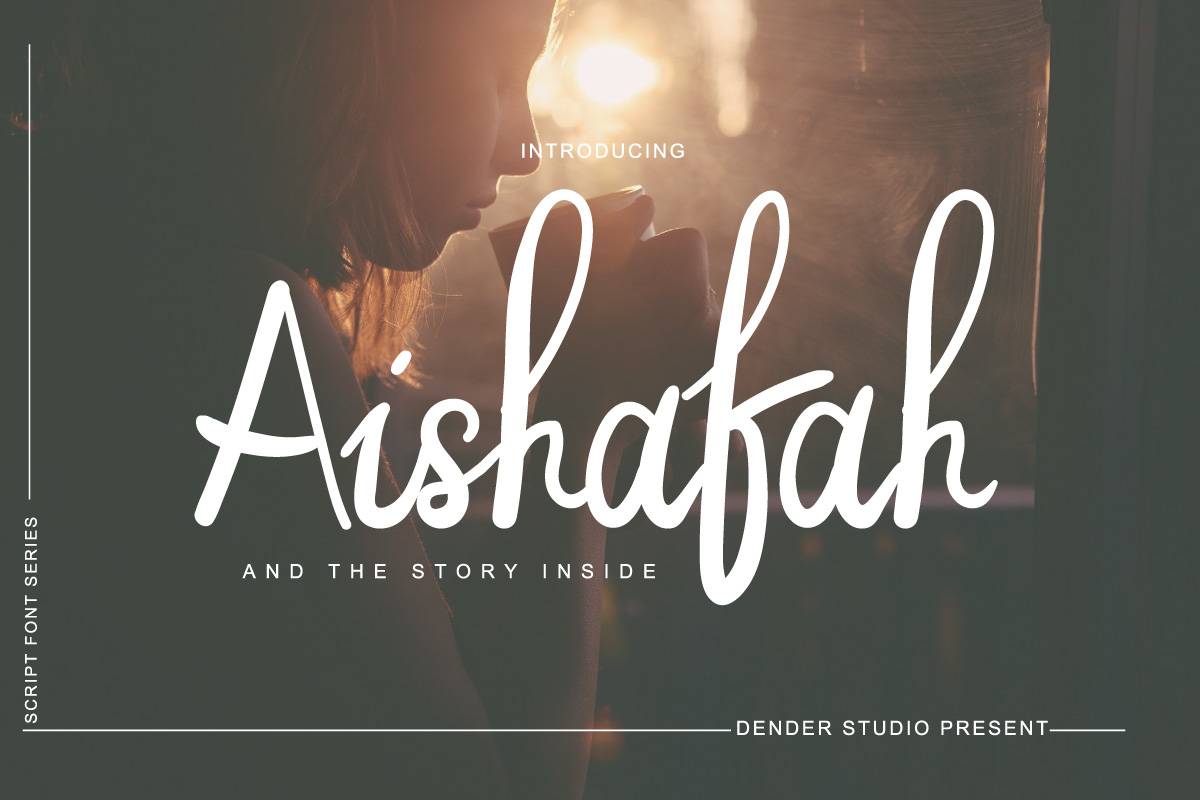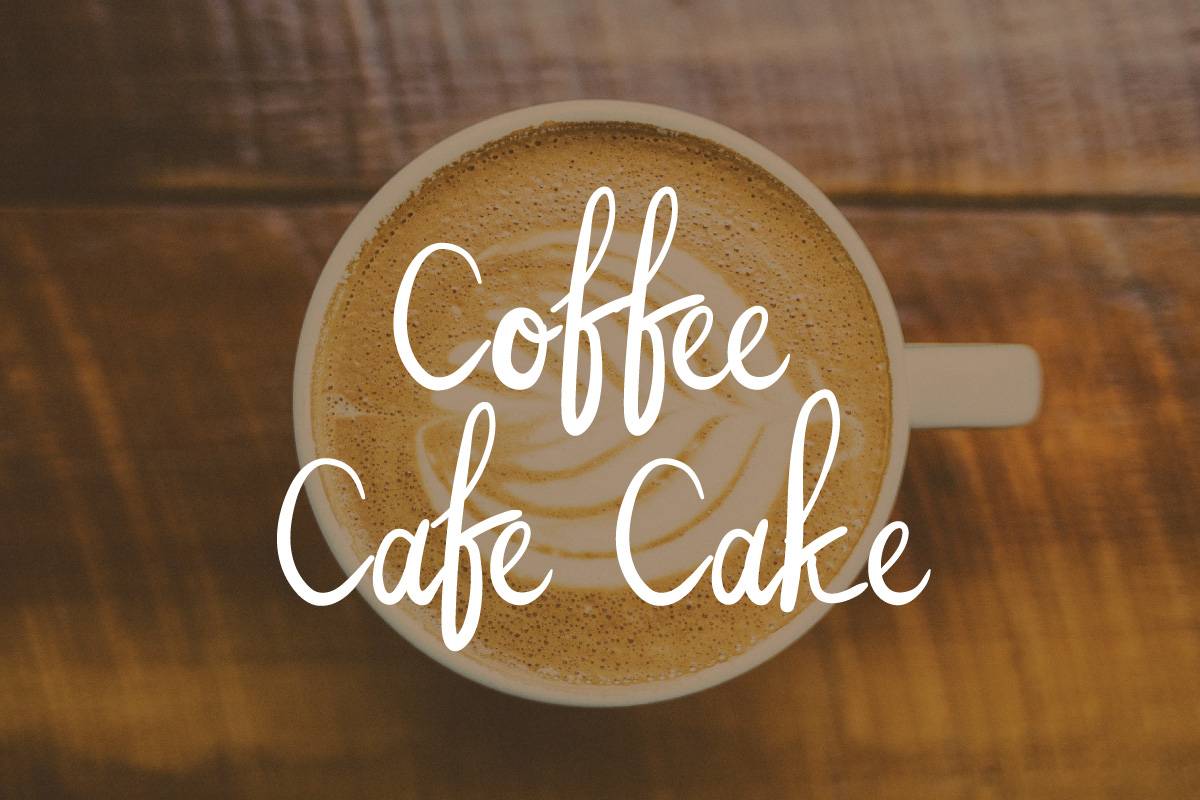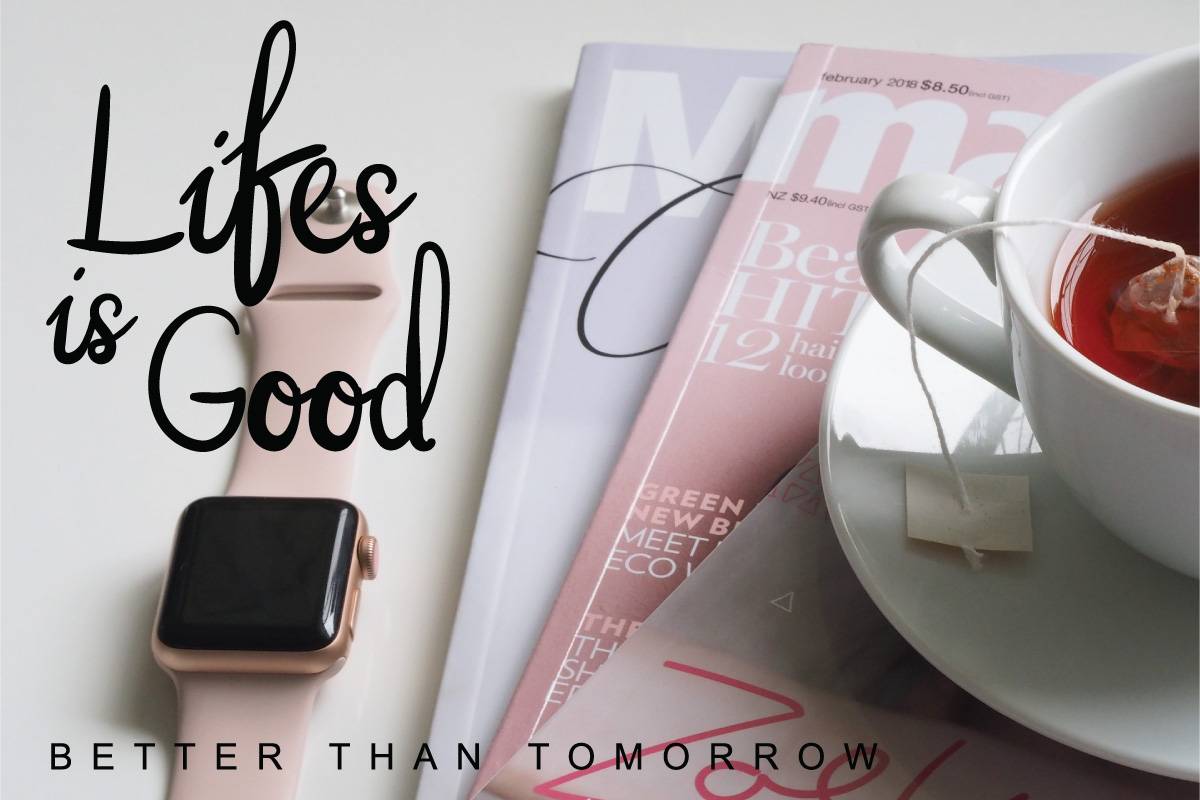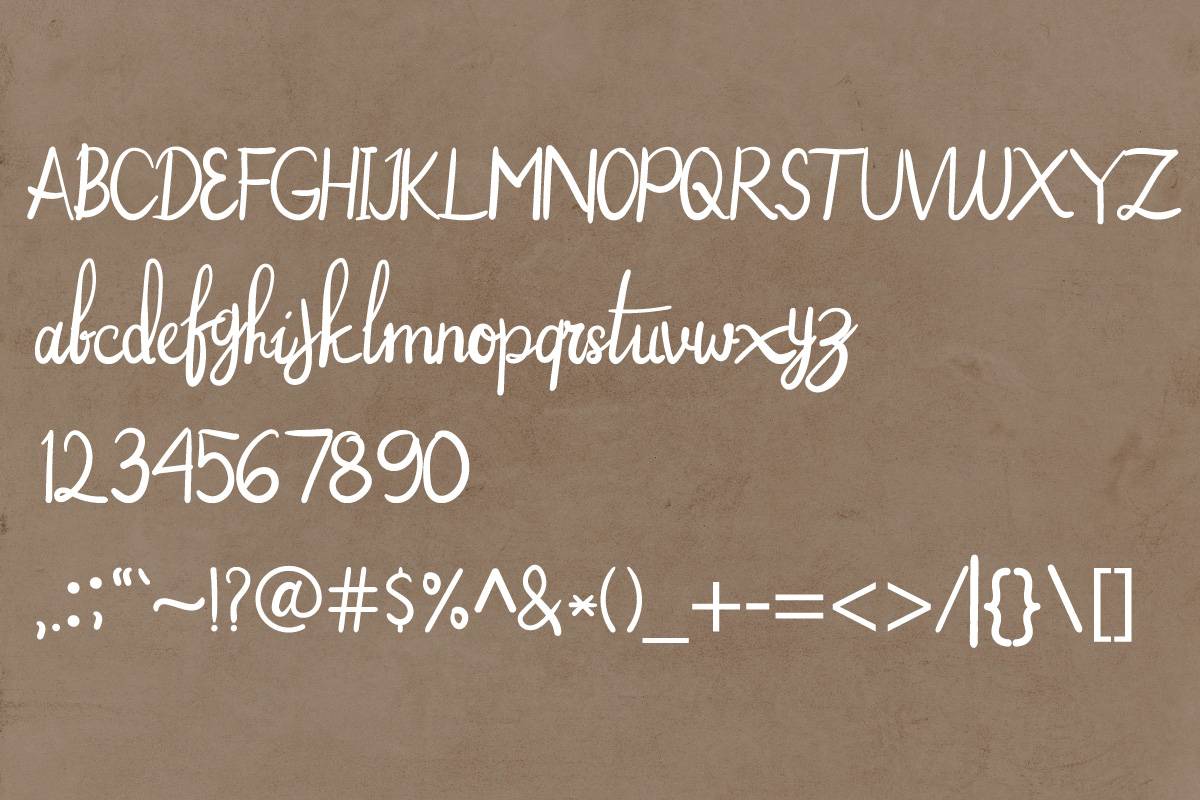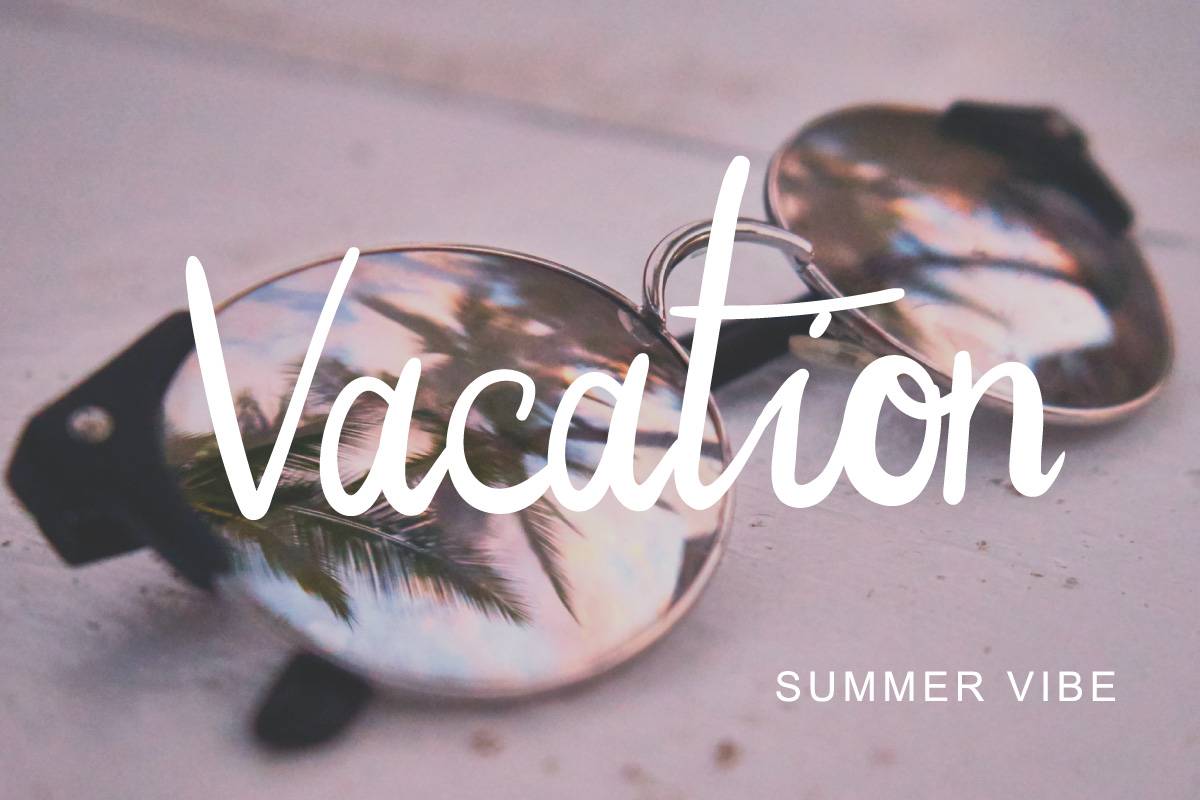
Aishafah is a playful and casual handwritten script font characterized by its tall, slightly condensed letterforms and smooth, flowing strokes that emulate natural handwriting. It features a mix of delicate and bold lines with some quirky, unique character shapes that give it a friendly and approachable personality, making it ideal for informal designs, invitations, and creative branding. This font works best in headlines or short text where a personal, warm touch is desired.
Aishafah Font
About Aishafah Font
| Font family | Aishafah Font |
| Release date | 2020-08-15 |
| Designer | d2n |